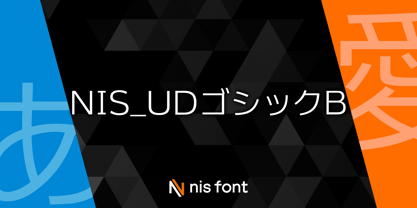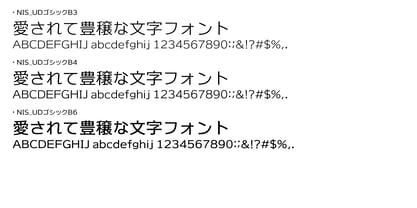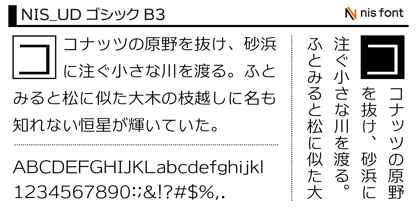
OT-UGB
by NIS Fonts
The OT-UGB Font Family was designed by and published by NIS Fonts. OT-UGB contains 3 styles and family package options. More about this family
This is a Gothic typeface designed with universal design principles in mind. The B series features slightly smaller kana characters, making long texts more rhythmical and easier to read. Note: This typeface supports the JIS2004 character set.